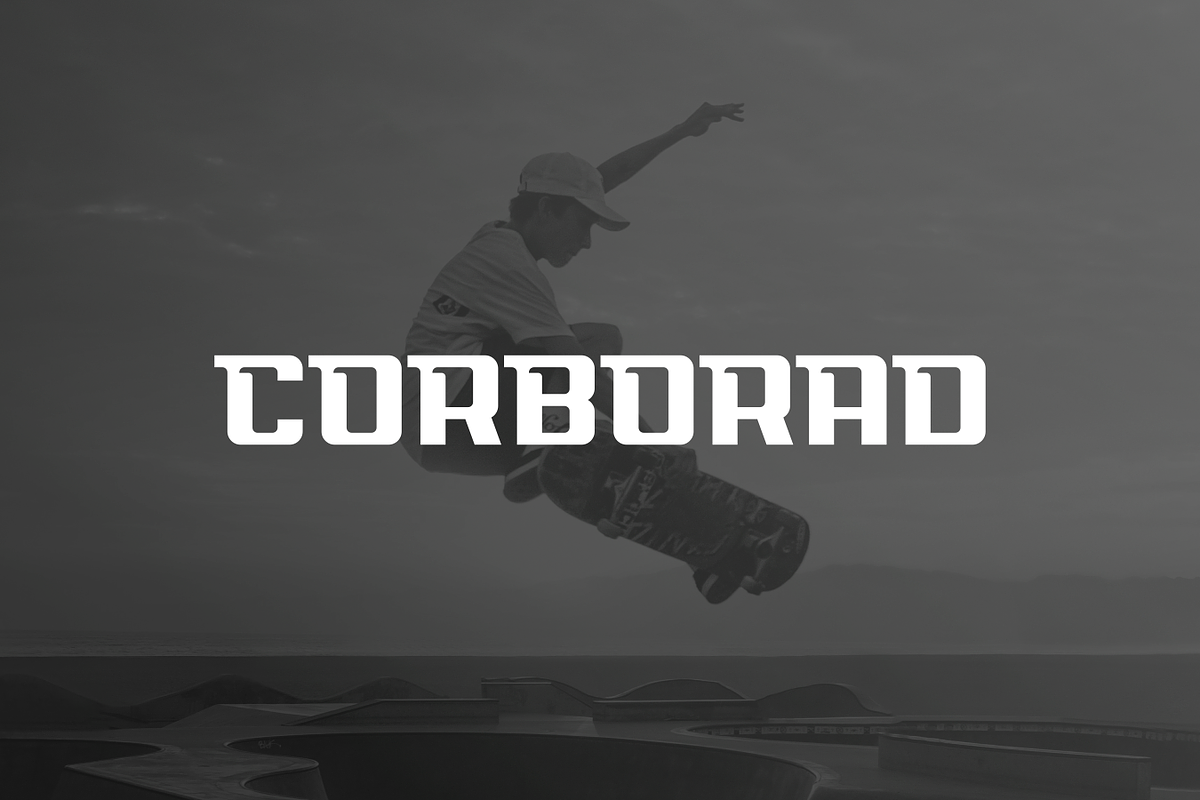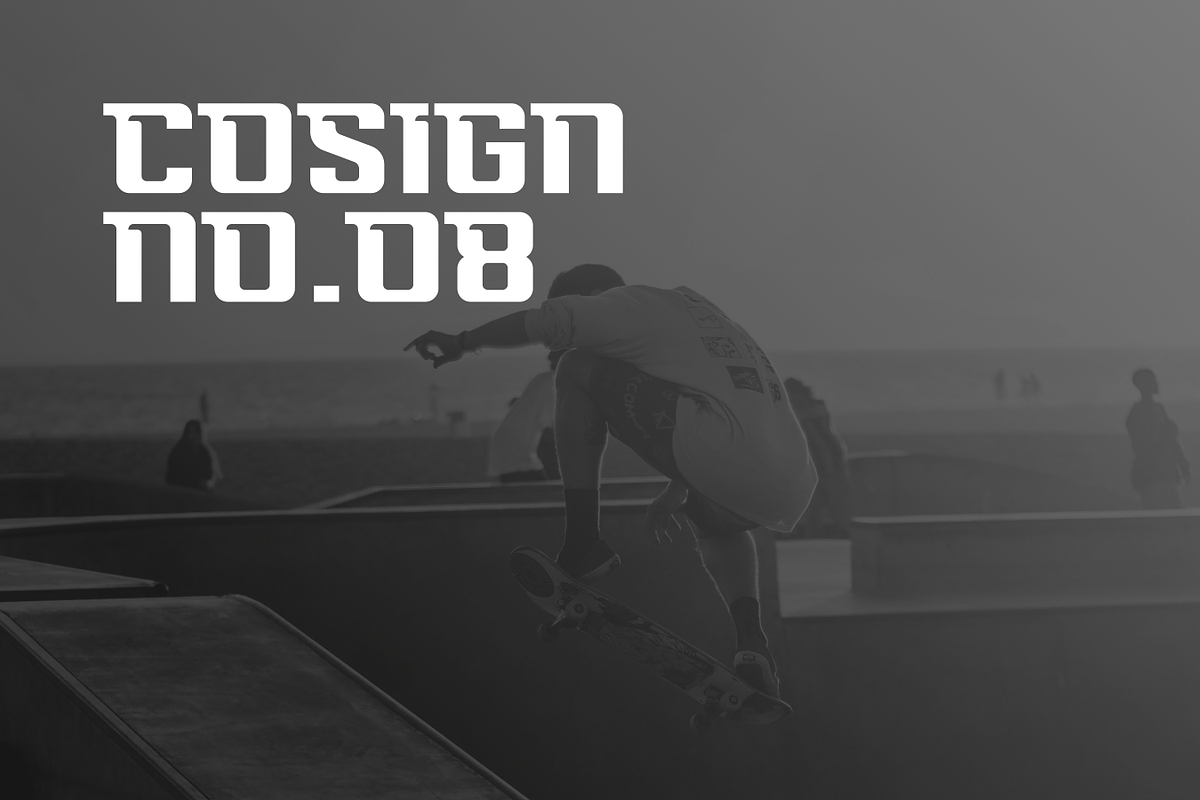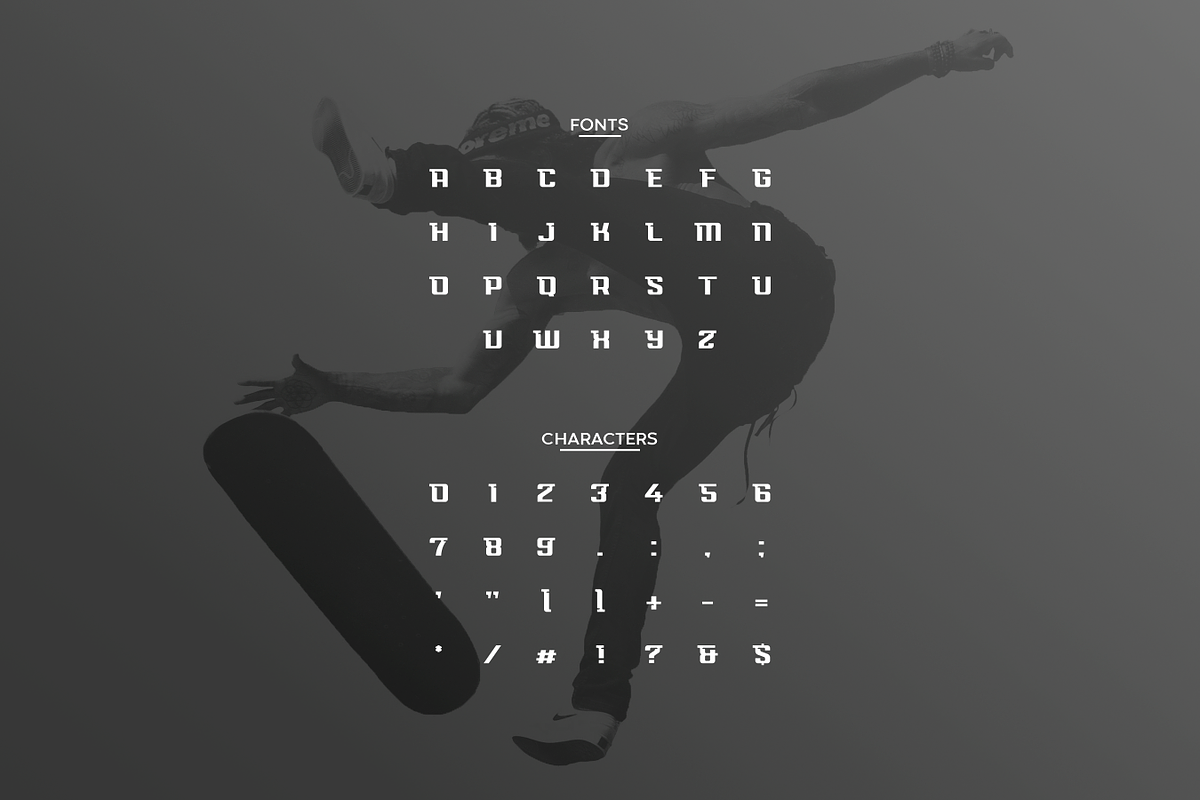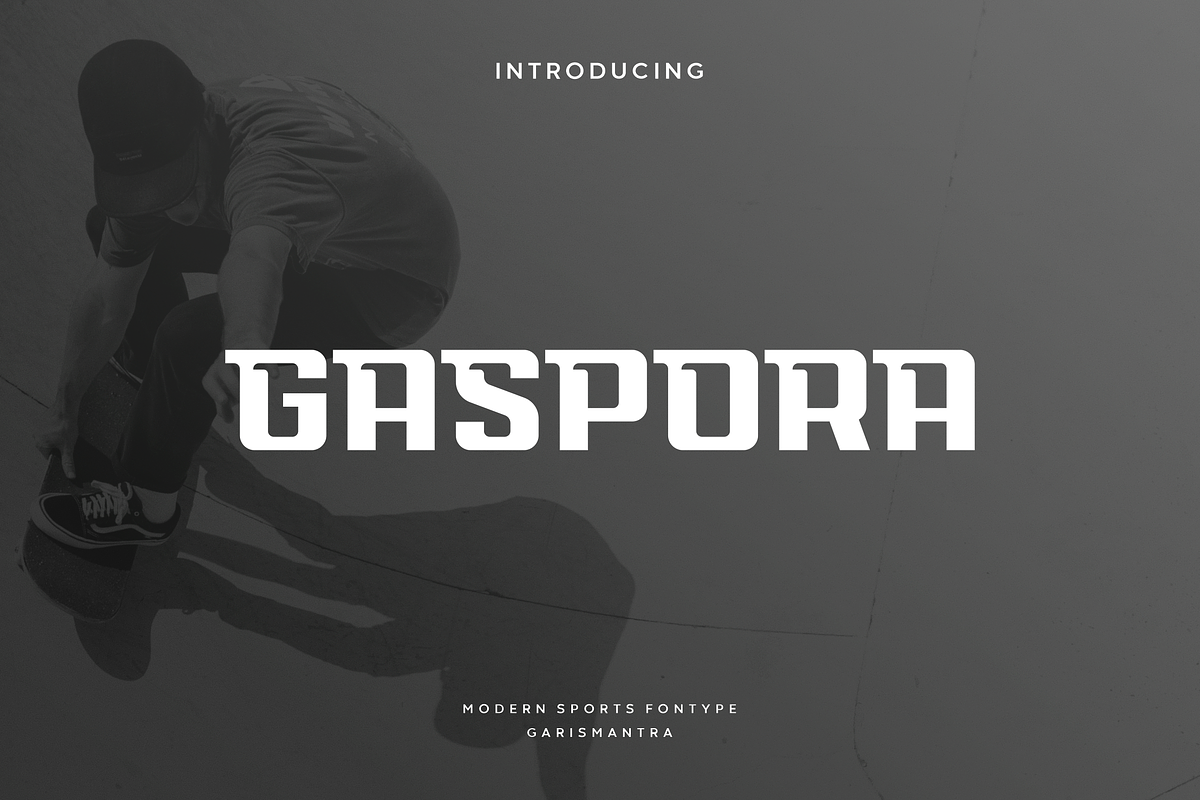
Gaspora
Gaspora is a decorative typeface that carries a mix of classic and modern, minimalist style with accent pieces on every corner. This typeface is only available in all caps, it will suit a wide variety of design needs, it is perfect for creating logo designs, headlines and titles. Grab it right away and use your imagination for more interesting, different and unique designs.